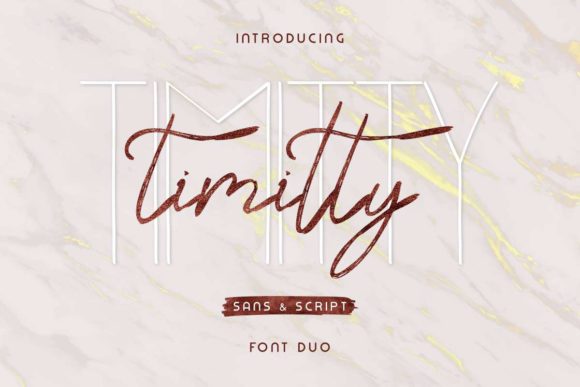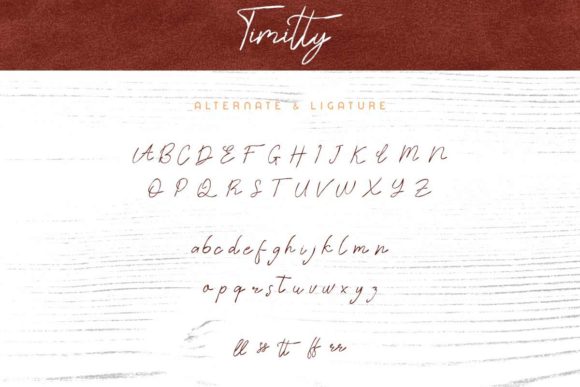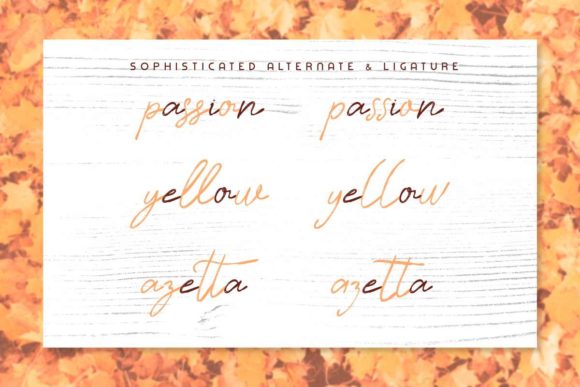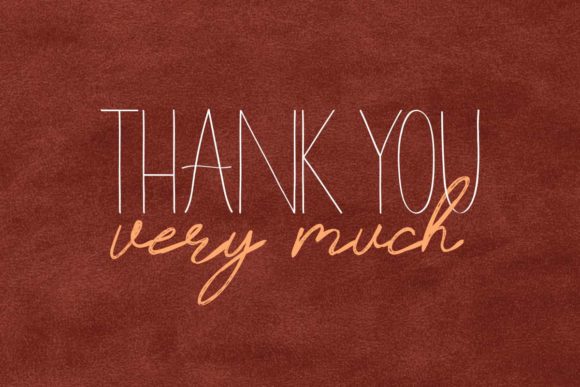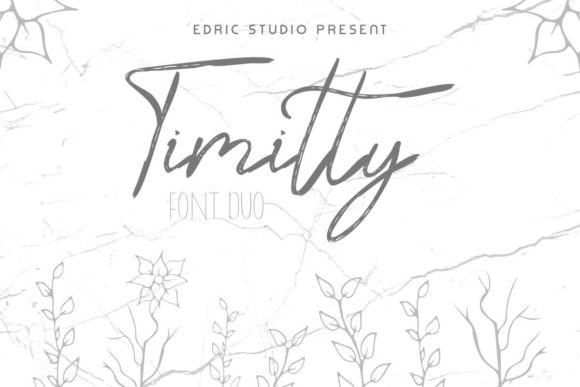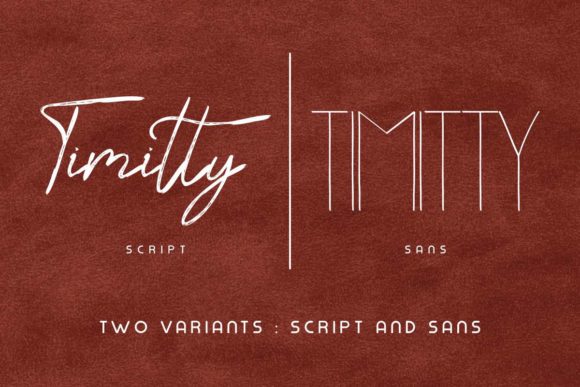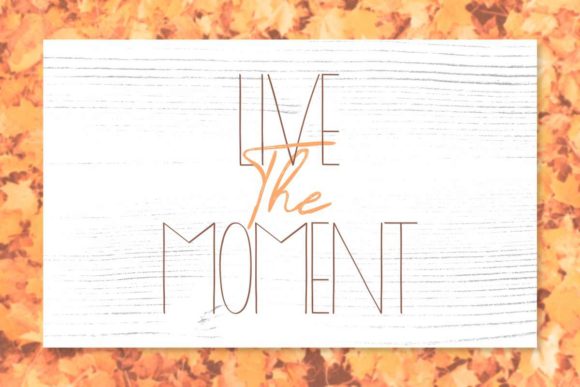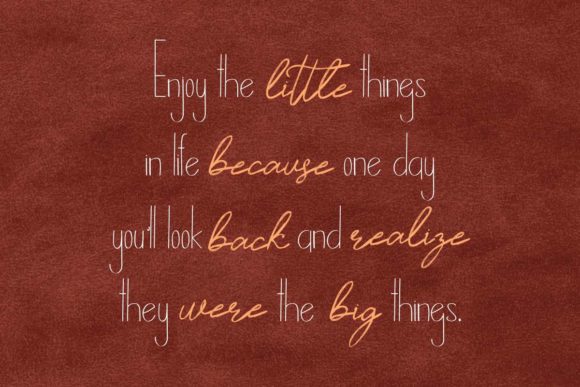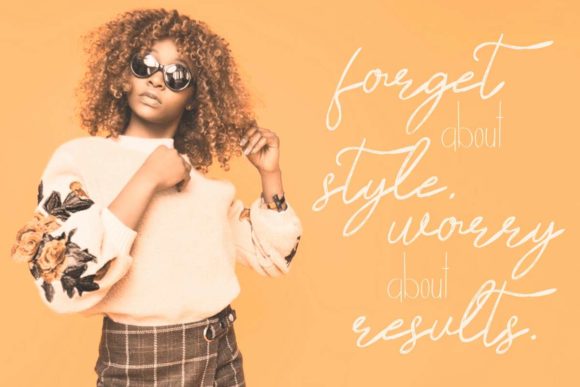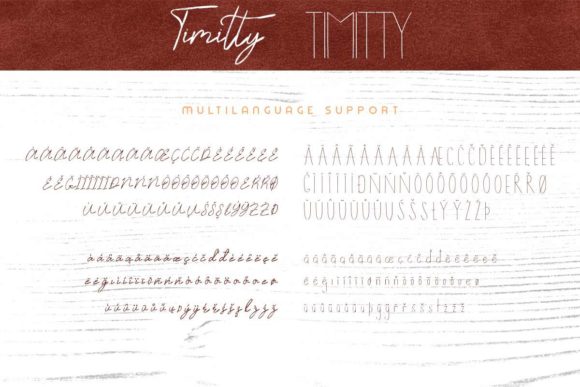
Timitty Duo Font
About Timitty Duo Font
Timitty duo is a match made in heaven, the swashes of the script perfectly complement the serif’s style. Combining these two fonts on your next design will give your next design a luxurious and sophisticated feel.
This versatility means that this font can be used in a wide variety of applications from branding, to arts & crafts projects- the only limit is your imagination!